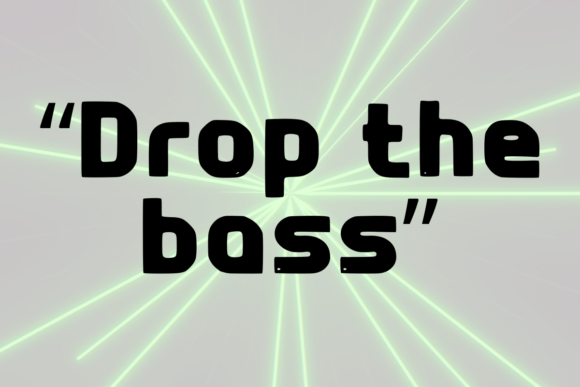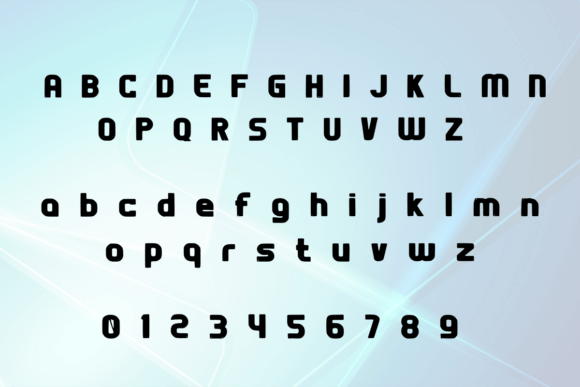
Introduction to Retro Rave Font
Remember the rush of excitement as you stepped into a dimly lit rave, surrounded by pulsating lights and infectious beats? The moment the DJ dropped the perfect track, and the crowd erupted in a frenzy of color and energy? That’s the vibe that Retro Rave Font captures – a futuristic 90s-inspired display font that’s perfect for transporting your audience back to the neon-lit nights of the past.
As designers, we’re always on the lookout for that special something that sets our projects apart. And with the Retro Rave Font, you’ll be able to give your creative project a boost of nostalgia and energy. Whether you’re working on a design resource, a club flyer, or a streetwear branding project, this high-quality font is sure to make a statement.
With its bold letterforms and techno vibes, the Retro Rave Font is a free download that’s ready to be used on a transparent background, giving you endless possibilities for creativity. So why not give it a try and see how it can elevate your next design project?
Key Features of Retro Rave Font
- High-quality design resource for creative projects, ideal for music festivals, raves, and nightlife events.
- Features a transparent background, allowing for easy customization and integration into various design elements.
- High-resolution design (300 DPI) ensures crisp and clear display, even in large formats.
- Unique retro aesthetic with a bold, neon-inspired style, perfect for adding a nostalgic touch to designs.
- Perfect for designers working on music festival, rave, or nightlife-themed projects, as well as those seeking a unique, eye-catching font for their creative projects.
Honest Review: Retro Rave Font
I recently stumbled upon the Retro Rave Font and I must say, it’s been a game-changer for my design projects. As a designer, I’m always on the lookout for high-quality design resources that can elevate my creative work.
One of the things that works well with the Retro Rave Font is its versatility. It’s perfect for creating eye-catching headings and titles for my projects, and its bold, neon-inspired aesthetic is sure to grab attention. ✨ The font is also incredibly easy to use, with a transparent background that makes it seamless to layer over any design element.
Here are some of the features that I love about the Retro Rave Font:
- Perfect for creating bold, eye-catching headings and titles
However, I do have one limitation to note: the font is a bit too over-the-top for some projects. It’s not ideal for creating clean, minimalist designs, as it can be a bit too flashy. ⚠️
Overall, I’m really impressed with the Retro Rave Font and I highly recommend it for any designer looking to add a bit of retro flair to their creative project.
The Retro Rave Font is a high-quality design resource perfect for creative projects that require a nostalgic and energetic vibe. With its unique style and transparent background, this font is ideal for designers looking for a free download that can elevate their work.
To get the most out of the Retro Rave Font, experiment with different font sizes, colors, and combinations to achieve the desired effect. You can also use it in conjunction with other design elements to create a cohesive and eye-catching visual identity.
The Retro Rave Font is perfect for a variety of creative projects, including:
- Music festival posters and flyers
- Retro-themed social media graphics
- 90s-inspired logos and branding
- Text overlays for music videos and live streams